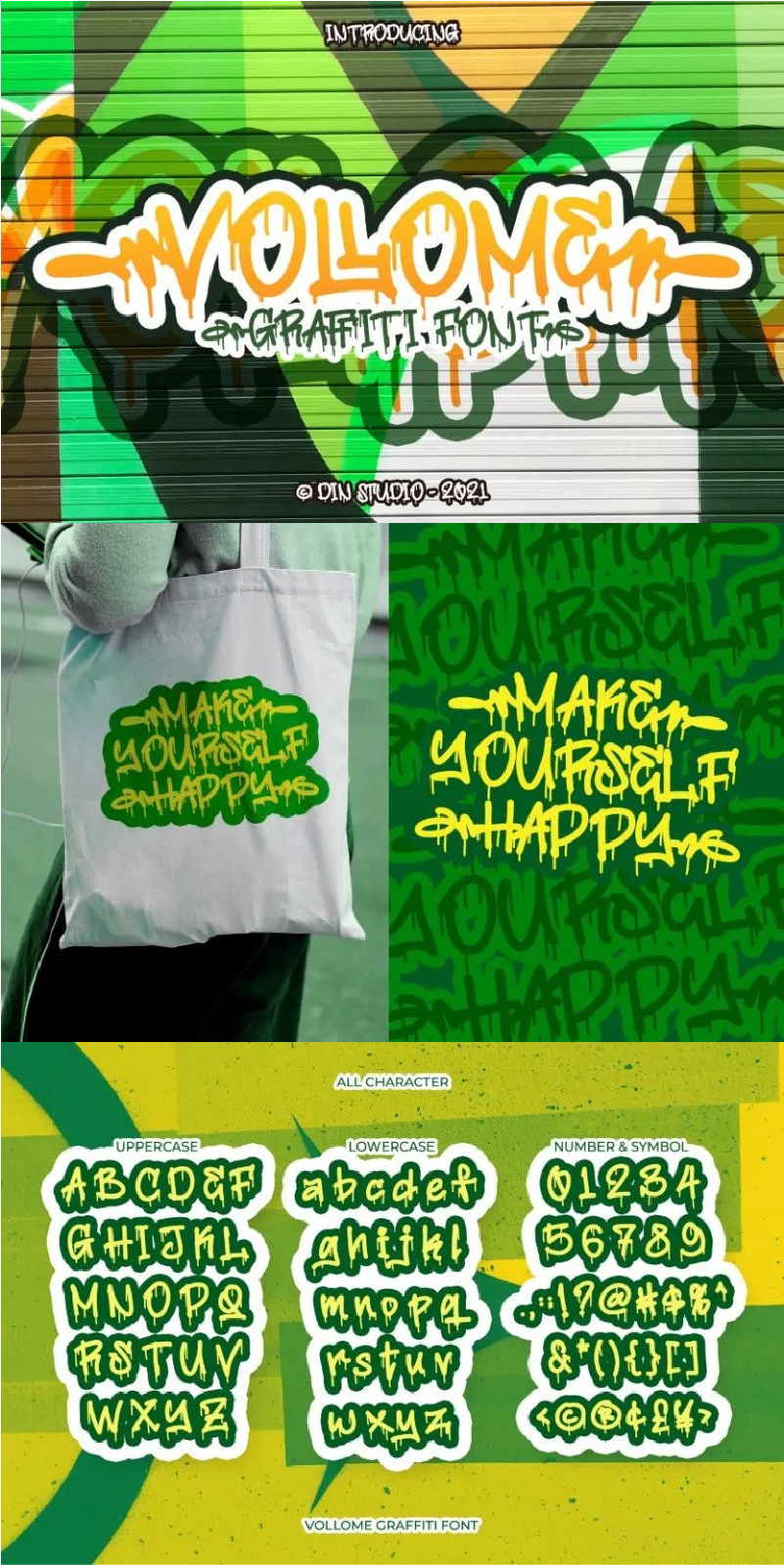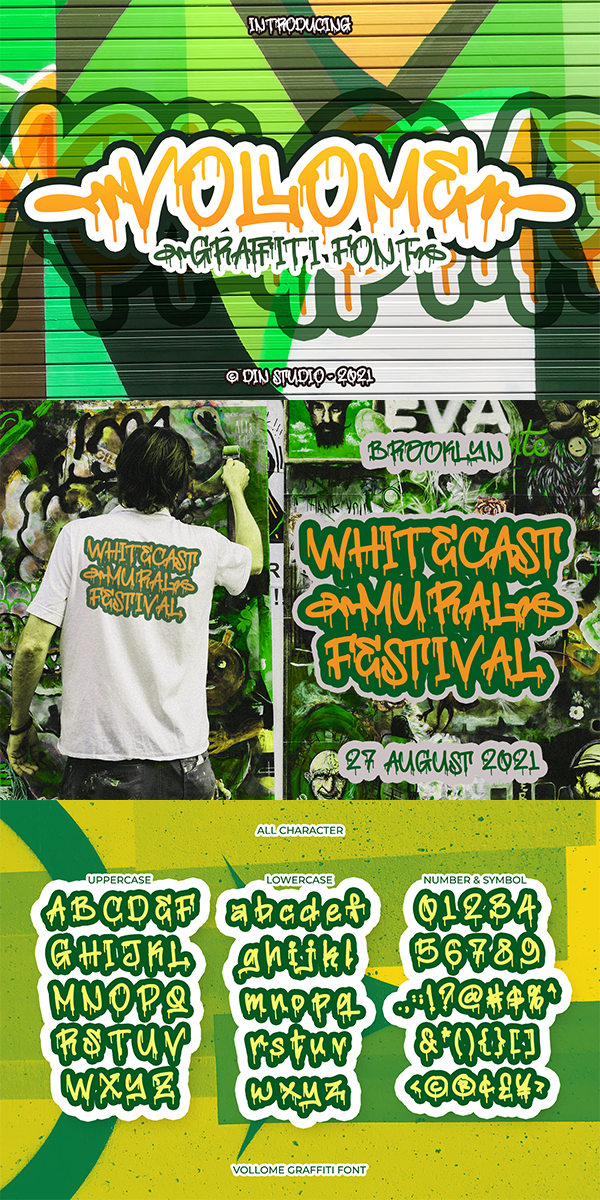
Vollome Font
About Vollome
Vollome is an uppercase typeface that combines the elements of a graffiti style, with a cute bubble aesthetic. A great display font that appears to drip down on the page, as if sprayed there only moments ago. Well suited to titles, poster designs, branding, and logos.
It is perfect to be used for many design projects, such as poster, logo, book cover, branding, heading, printed product, merchandise, quotes, social media campaign, etc. Learn more about how to use it by seeing the font preview.